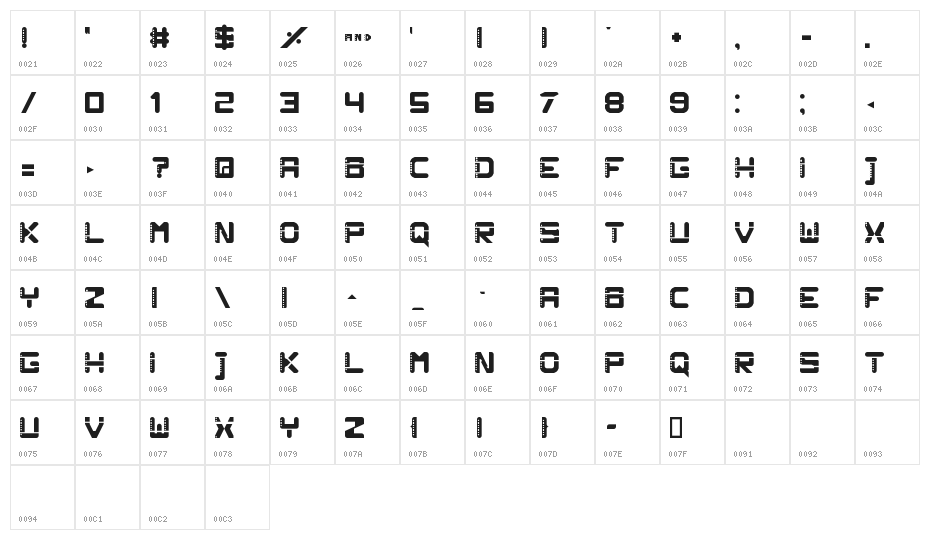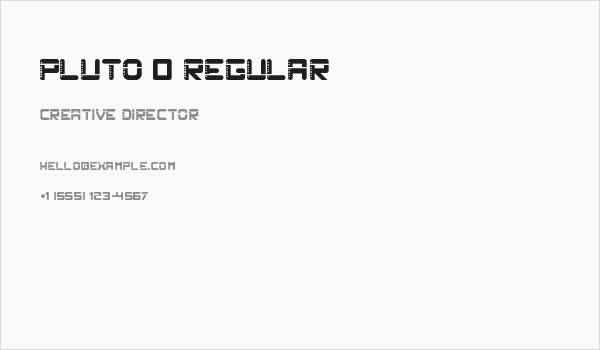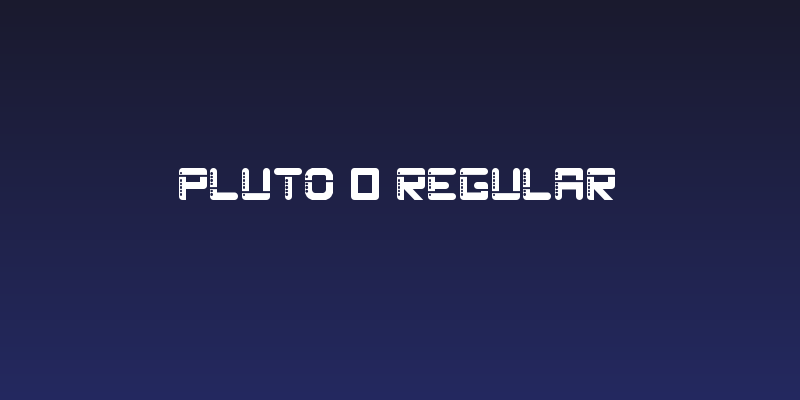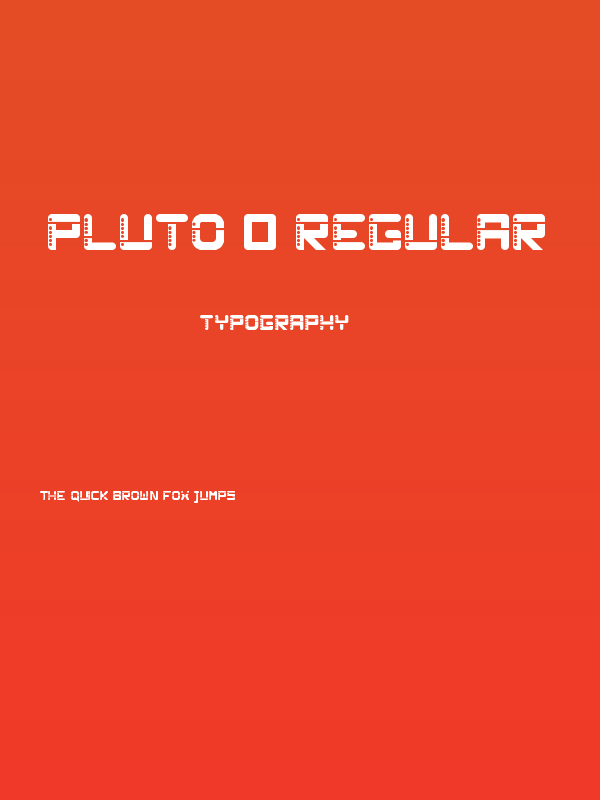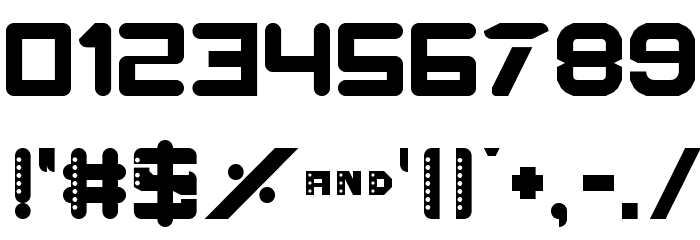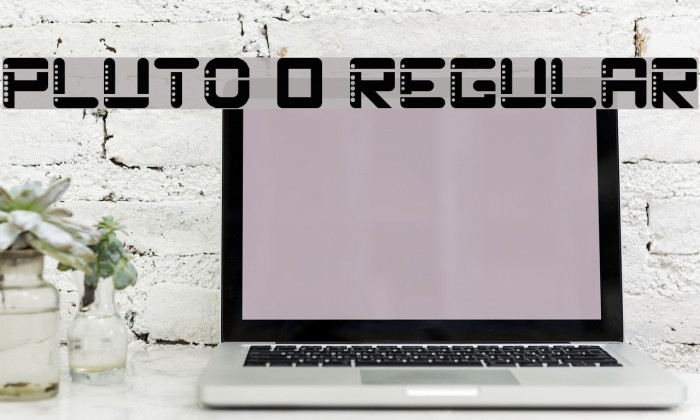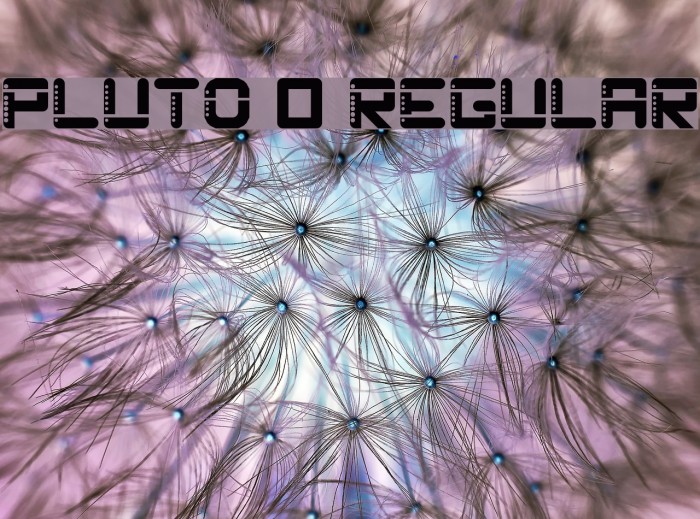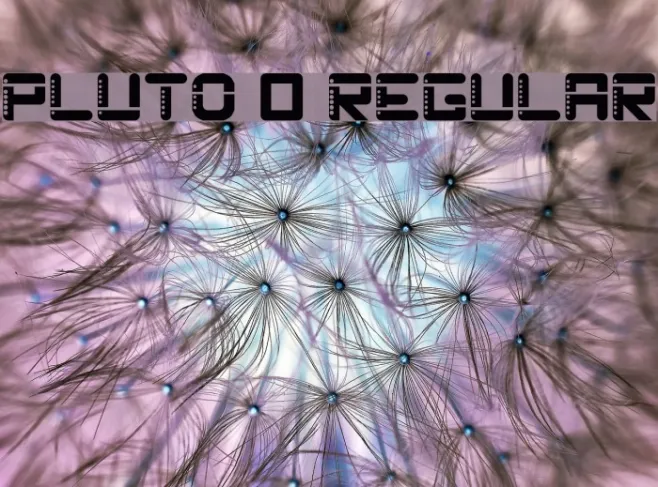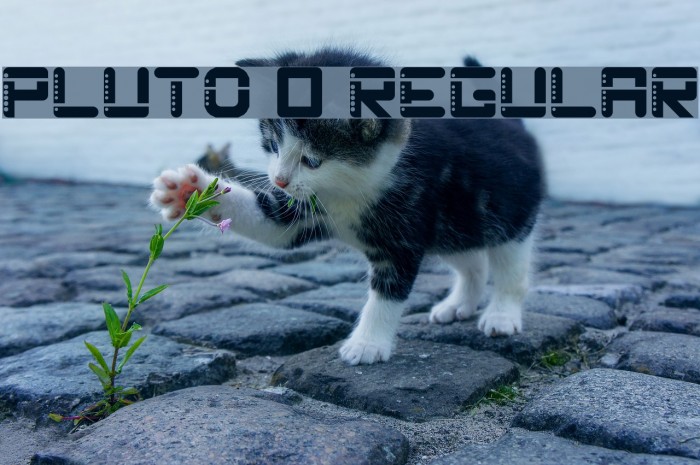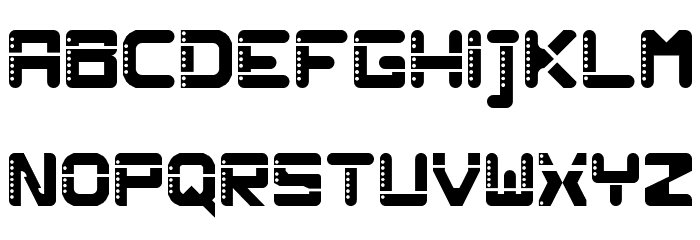
Pluto 0 Regular Font
Pluto 0 Regular Description
This font features a bold, futuristic design with a unique dotted pattern along the edges of each character, giving it a digital or technological feel. The characters are constructed with thick, uniform strokes, creating a strong visual impact. The uppercase letters are particularly striking, with angular lines and a geometric structure that adds to the modern aesthetic. The numerals and special characters maintain this cohesive style, ensuring versatility across different uses. The overall look is both innovative and eye-catching, making it suitable for projects that require a contemporary and dynamic appearance.
| Proposed Projects | Ideal for tech-related branding, digital media, futuristic posters, and video game design. |